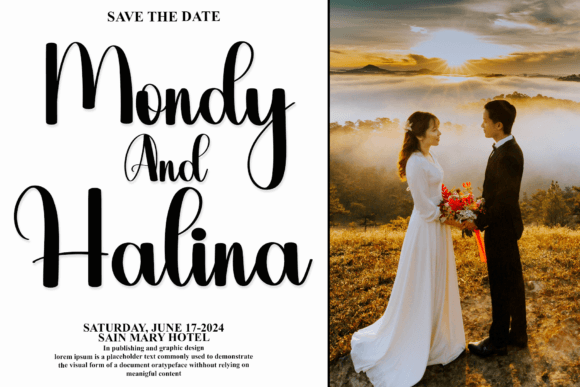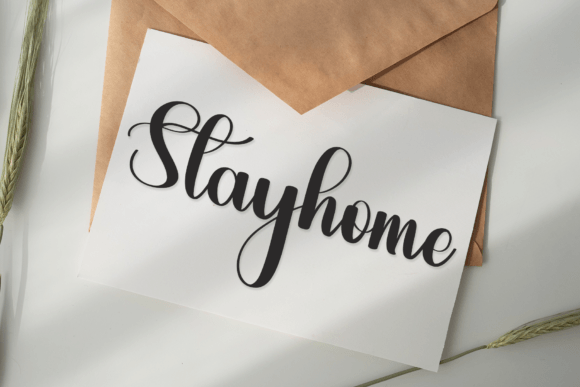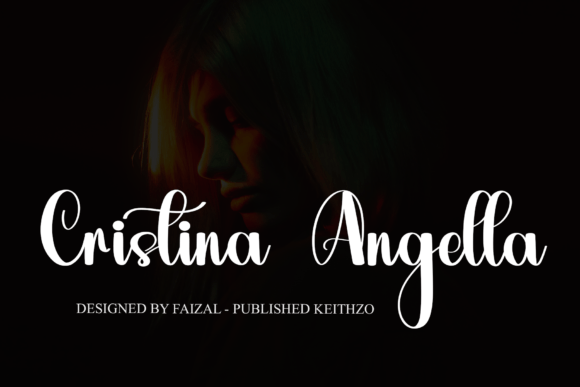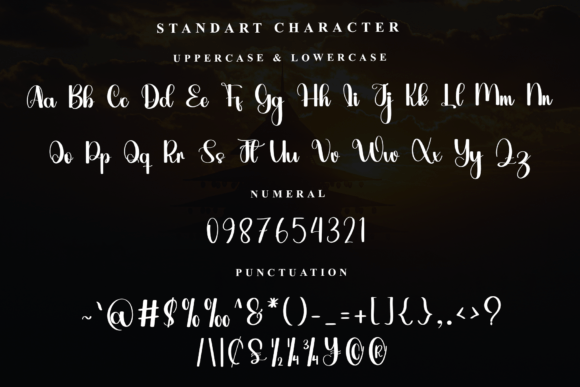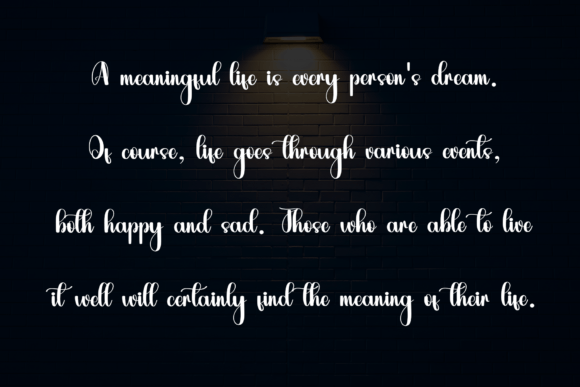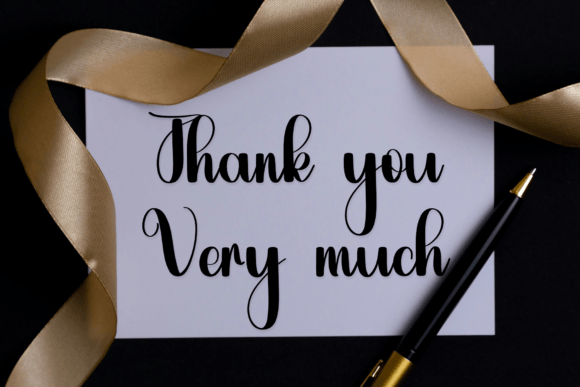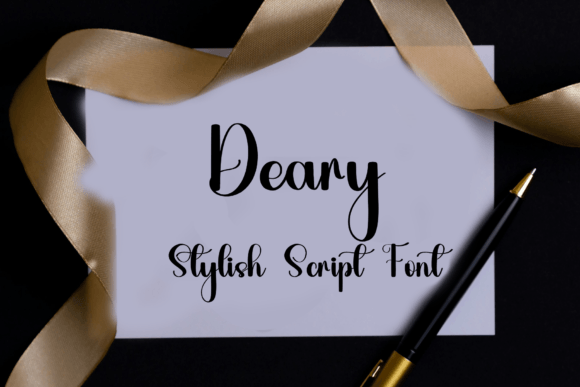
Introducing Deary Font: A Festive and Happy Typeface for the Holiday Season
Are you looking for a font that embodies the spirit of the holiday season? Do you want to add a touch of charm and whimsy to your designs? Look no further than Deary Font, a festive and happy typeface that’s perfect for greeting cards, gift labels, and holiday-themed projects.
What Makes Deary Font So Special?
Deary Font is a unique and decorative typeface that captures the essence of the holiday season. With its intricate details and playful flair, it’s sure to bring a smile to anyone’s face. This font is designed to add a touch of nostalgia and cheer to your words, making it perfect for a variety of design projects.
Deary Font is specifically designed with the holiday season in mind. Its festive and happy vibe makes it perfect for a variety of projects, including:
- Greeting cards: Add a personal touch to your holiday cards with Deary Font’s unique and decorative style.
- Gift labels: Make your gifts stand out with custom labels featuring Deary Font’s playful and festive flair.
- Holiday-themed projects: From invitations to party decorations, Deary Font is the perfect choice for any holiday-themed project.
What You’ll Love About Deary Font
Here are just a few things you’ll love about Deary Font:
- Unique and decorative style: Deary Font’s playful and festive flair is sure to make your designs stand out.
- Perfect for holiday projects: Deary Font is specifically designed for the holiday season, making it the perfect choice for greeting cards, gift labels, and more.
- Nostalgic and cheerful atmosphere: Deary Font brings a touch of nostalgia and cheer to your words, making it perfect for holiday-themed projects.
Tips for Using Deary Font
Here are a few tips for getting the most out of Deary Font:
- Experiment with different sizes and colors: Deary Font looks great in a variety of sizes and colors, so don’t be afraid to experiment and find the perfect look for your project.
- Pair with other fonts: Deary Font pairs well with a variety of other fonts, so try combining it with other typefaces to create a unique and interesting look.
- Use it for headlines and titles: Deary Font’s decorative style makes it perfect for headlines and titles, where you want to make a big impact.